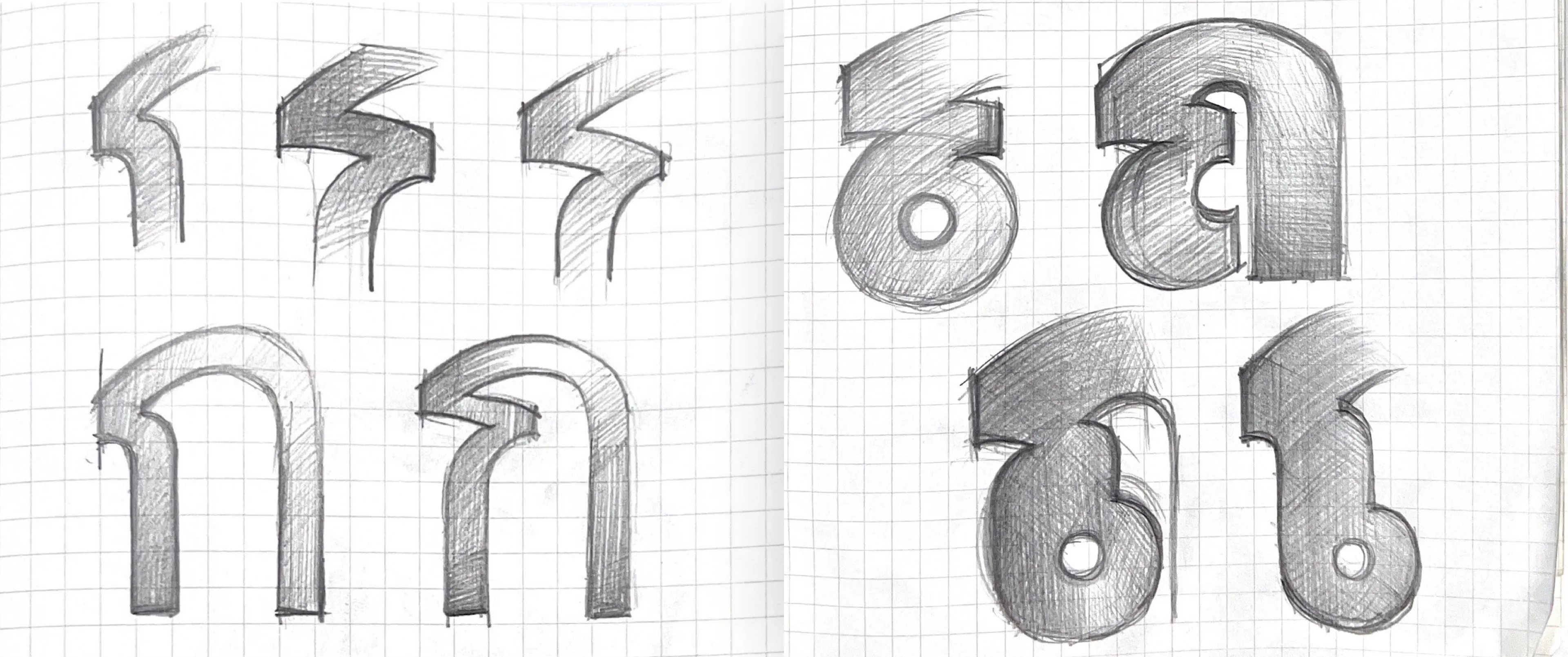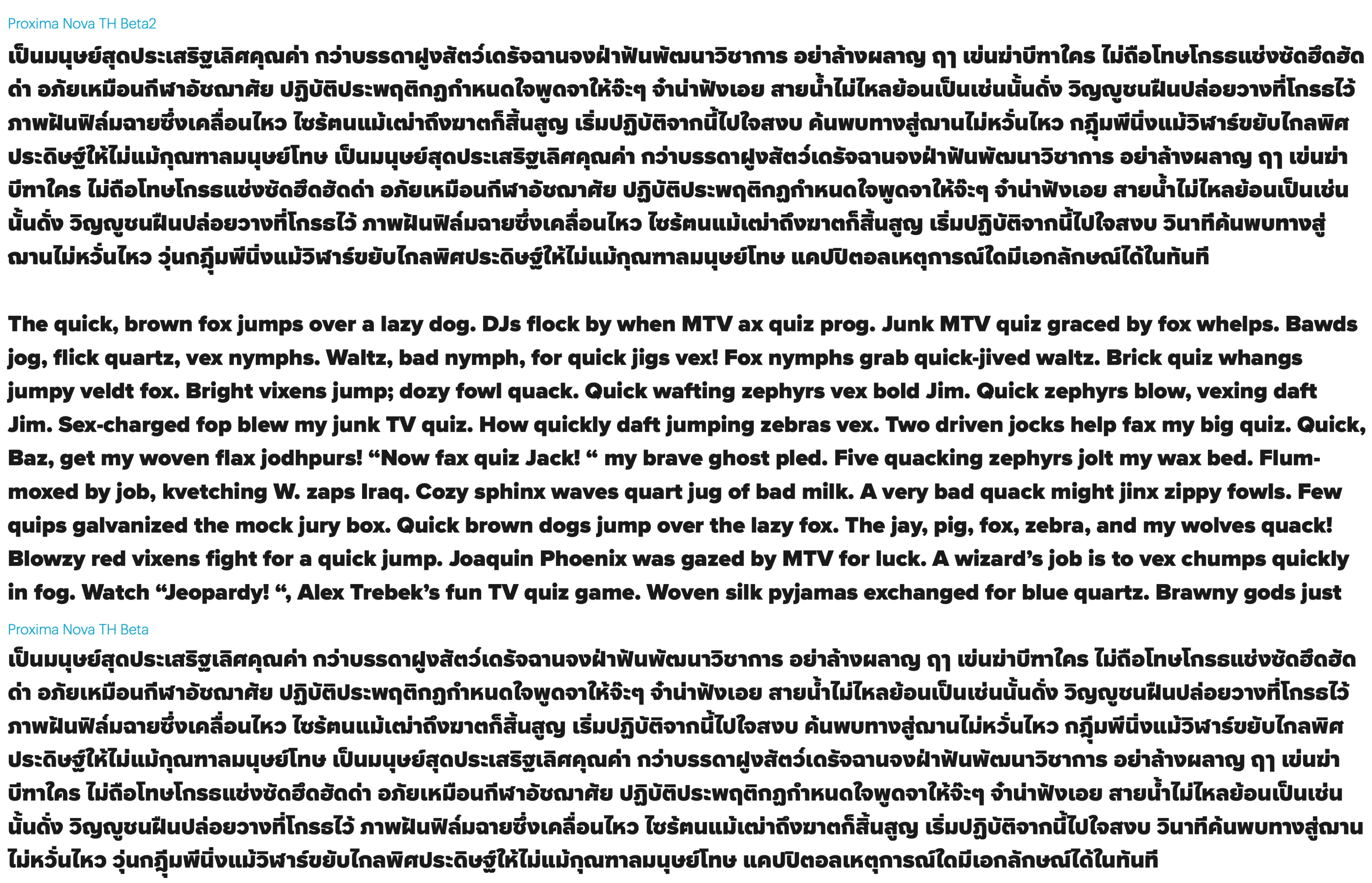
- 8 weights: Thin, Light, Regular, Medium, Semibold, Bold, Extrabold, and Black.
- 2 versions: Looped is a more traditional style of the Thai script generally used for small text settings, and Loopless is a more contemporary style used for display typography.
- Matching italics for all weights.
- Matching small caps for all weights.*
- Case-sensitive forms for all-caps settings.*
- Lining and old style figures (proportional and tabular).*
- Required ligatures.*
- Discretionary ligatures.*
- Full “f” ligature set (ff, fi, fl, ffi, ffl, etc.).*
- Alternate characters (a, l, y, G, slashed zero, and seriffed 1).*
- Thai punctuation, figures, and symbols.
- Automatic arbitrary fractions.*
- Automatic ordinals.*
- Extended language support for Thai, most Latin-based Western and Central European languages. Also includes the capital German sharp S.
- Extended currency support.